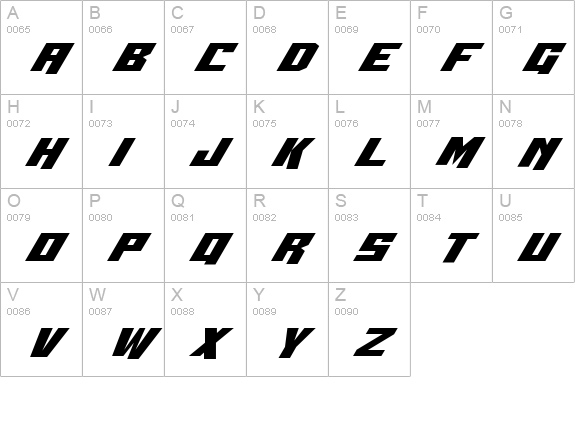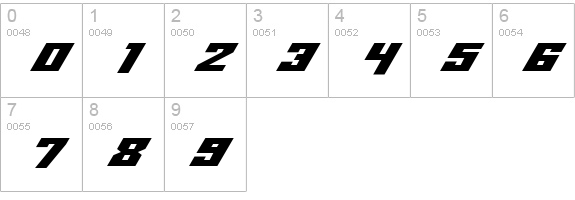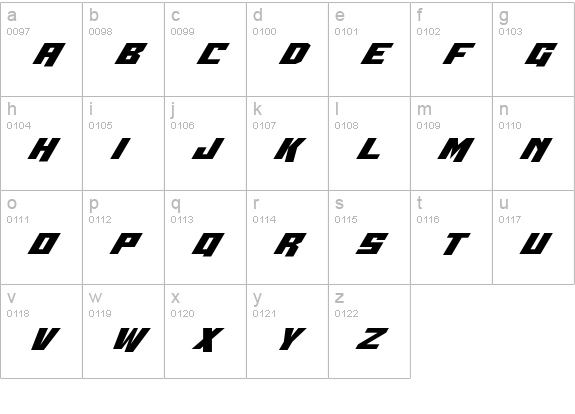
Whiskey Bravo Victor Ex Font Details
Whiskey Bravo Victor Ex font is a captivating and versatile typeface that exudes a sense of elegance and sophistication. With its clean lines and sharp edges, this font is perfect for creating eye-catching designs that demand attention. This font features a unique combination of modernity and classic charm, making it suitable for a wide range of creative projects. Whether you are designing a logo, a headline, or a poster, Whiskey Bravo Victor Ex font will add a touch of refinement and style to your work. What sets Whiskey Bravo Victor Ex font apart is its availability as a free download. This means that you can easily access and use this font for your personal or commercial projects without any restrictions. It offers incredible value and flexibility, allowing you to unleash your creativity without breaking the bank. To get your hands on the Whiskey Bravo Victor Ex font, simply head over to FontsMarket.com. There, you can freely download this stunning typeface and start incorporating it into your designs. The website provides a hassle-free experience, ensuring that you can quickly and effortlessly access this font and begin creating visually stunning and captivating graphics. Whiskey Bravo Victor Ex font is a must-have for any designer or creative professional looking to elevate their work to new heights. Its impeccable design and free availability make it an invaluable asset in your font collection. Download it now and let this font inspire your next masterpiece.